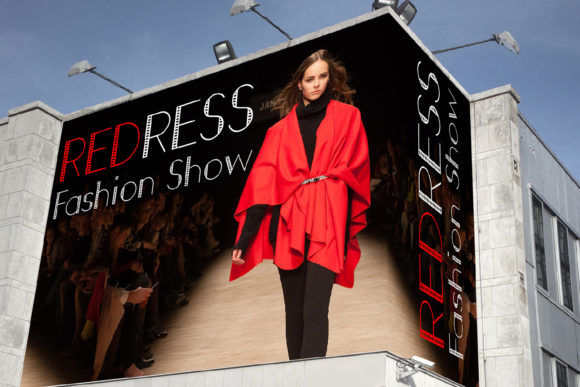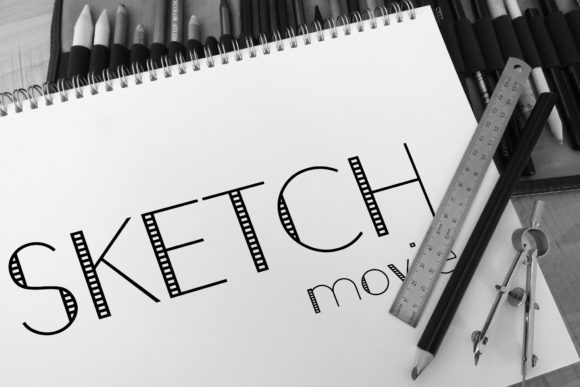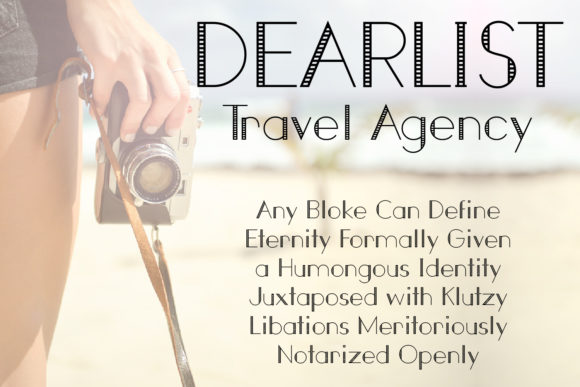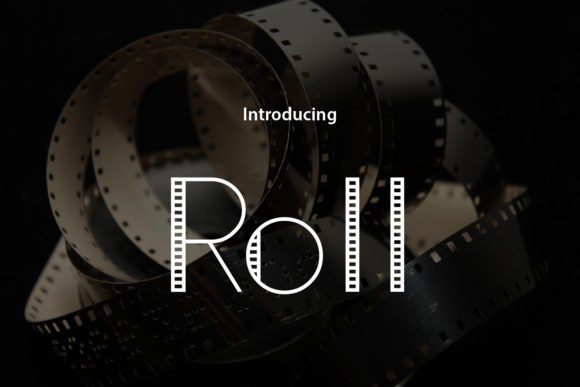
Introduction to Roll Font
Inspired by old film photos, Roll is a truly unique vintage sans serif font.
Inspired by old film photos, Roll is a truly unique vintage sans serif font!
Key Features of Roll Font
Why Choose Roll Font?